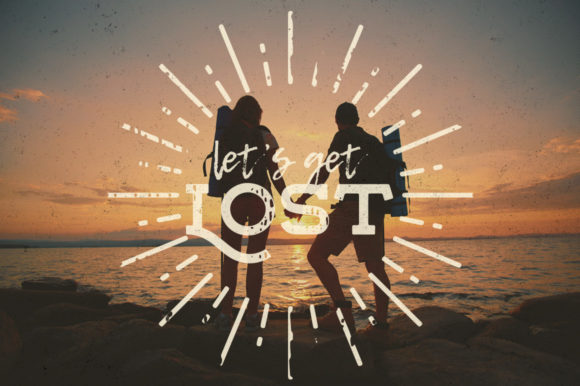
Introducing Floure Font: A Unique Slab Serif Typeface with a Vintage Twist
In the world of typography, fonts play a crucial role in conveying the tone and personality of a brand or design project. With the ever-growing demand for distinctive and eye-catching visuals, designers and brands are constantly on the lookout for innovative and stylish typefaces that can help them stand out from the crowd. This is where Floure Font comes in – a new slab serif typeface that embodies the essence of mid-19th century styles with strong, unique, and vintage rough shapes.
What is Floure Font?
Floure Font is a carefully crafted slab serif typeface that draws inspiration from the mid-19th century. Its design is characterized by strong, bold lines and unique rough shapes that give it a distinctive vintage feel. The font’s rugged texture and classic style make it perfect for a wide range of design projects, from branding and advertising to poster design, book covers, and more.
Key Features of Floure Font
- Mid-19th century style: Floure Font is deeply rooted in the typographic styles of the mid-19th century, making it an excellent choice for designs that require a vintage or retro aesthetic.
- Strong and unique rough shapes: The font’s bold lines and distinctive rough shapes give it a rugged texture that sets it apart from other typefaces.
- Slab serif design: Floure Font features a classic slab serif design that adds to its vintage charm.
- Versatile: The font is suitable for a wide range of design projects, including branding, advertising, poster design, book covers, headlines, prints, merchandise, websites, magazines, album covers, quote designs, and more.
Uses of Floure Font
Floure Font is an incredibly versatile typeface that can be used in a variety of design projects. Here are some examples of how you can use Floure Font to add a touch of vintage charm to your designs:
- Branding: Use Floure Font to create a unique and memorable brand identity that stands out from the competition.
- Advertising: The font’s bold and rugged texture makes it perfect for advertising campaigns that require a strong and attention-grabbing visual.
- Poster design: Floure Font is ideal for poster design, adding a touch of vintage charm to your posters and flyers.
- Book covers: The font’s classic style and rugged texture make it an excellent choice for book covers, particularly for genres such as historical fiction, mystery, and thriller.
- Headlines: Use Floure Font to create bold and eye-catching headlines that grab the reader’s attention.
- Prints: The font is suitable for a wide range of print materials, including brochures, catalogs, and business cards.
- Merchandise: Floure Font can be used to create unique and stylish merchandise, such as t-shirts, mugs, and tote bags.
- Websites: The font’s versatility makes it suitable for use on websites, adding a touch of vintage charm to your online presence.
- Magazines: Floure Font is perfect for magazine designs, particularly for publications that require a classic and sophisticated look.
- Album covers: The font’s rugged texture and vintage style make it an excellent choice for album covers, particularly for music genres such as rock, blues, and folk.
- Quote designs: Use Floure Font to create inspiring and eye-catching quote designs that can be used on social media or as standalone visuals.
Benefits of Using Floure Font
Floure Font offers a range of benefits that make it an excellent choice for designers and brands. Here are some of the advantages of using Floure Font:
- Unique and distinctive: Floure Font is a one-of-a-kind typeface that can help you stand out from the competition.
- Vintage charm: The font’s mid-19th century style and rugged texture give it a unique vintage charm that can add a touch of sophistication to your designs.
- Versatile: Floure Font is suitable for a wide range of design projects, making it an excellent addition to your font library.
- Easily readable: Despite its bold and rugged texture, Floure Font is easily readable, making it perfect for use in body text and headlines.
Tips for Using Floure Font
Here are some tips for using Floure Font effectively in your design projects:
- Use it boldly: Floure Font is designed to make a statement, so don’t be afraid to use it boldly and prominently in your designs.
- Experiment with colors: The font’s rugged texture and vintage style make it perfect for use with a range of colors, from bold and bright to muted and pastel.
- Pair it with other fonts: Floure Font can be paired with other fonts to create a unique and visually appealing typography.
- Use it consistently: To create a cohesive brand identity, use Floure Font consistently across all your design materials.
Floure Font is a unique and versatile slab serif typeface that embodies the essence of mid-19th century styles with strong, unique, and vintage rough shapes. Its rugged texture and classic style make it perfect for a wide range of design projects, from branding and advertising to poster design, book covers, and more. With its bold and eye-catching design, Floure Font is sure to make a statement and add a touch of vintage charm to your designs.